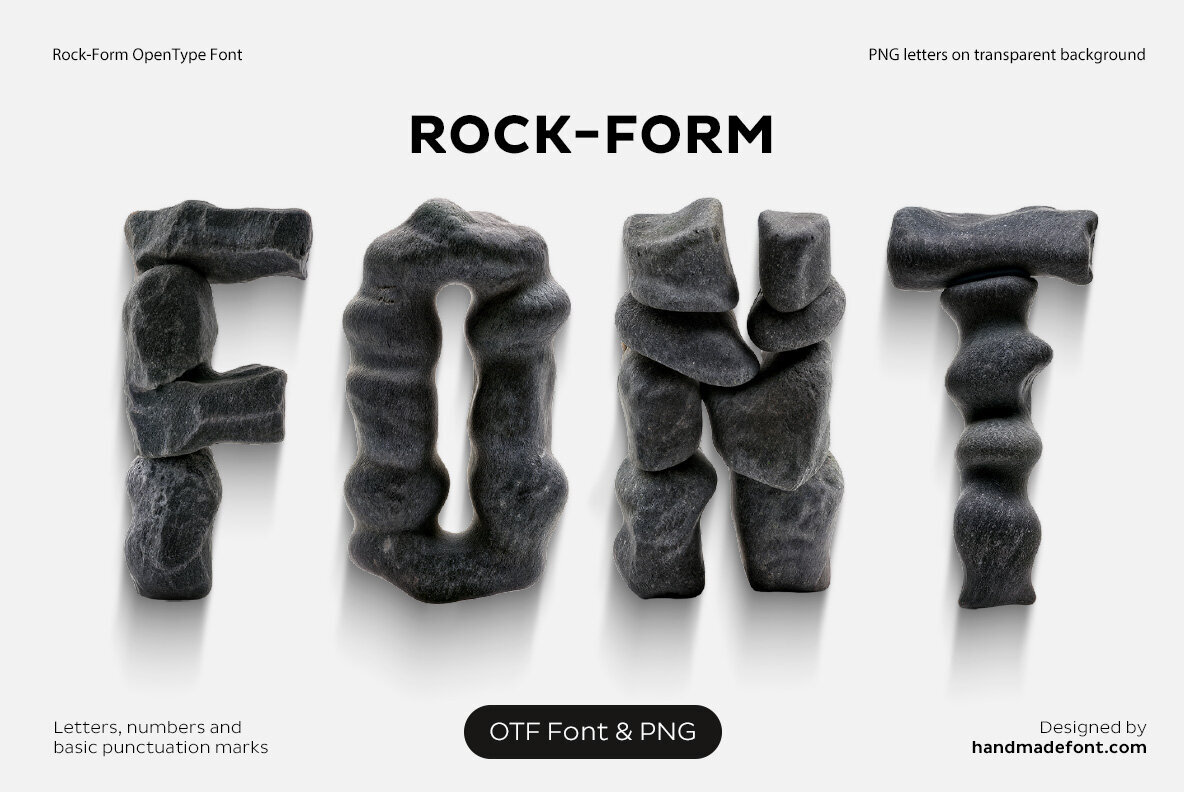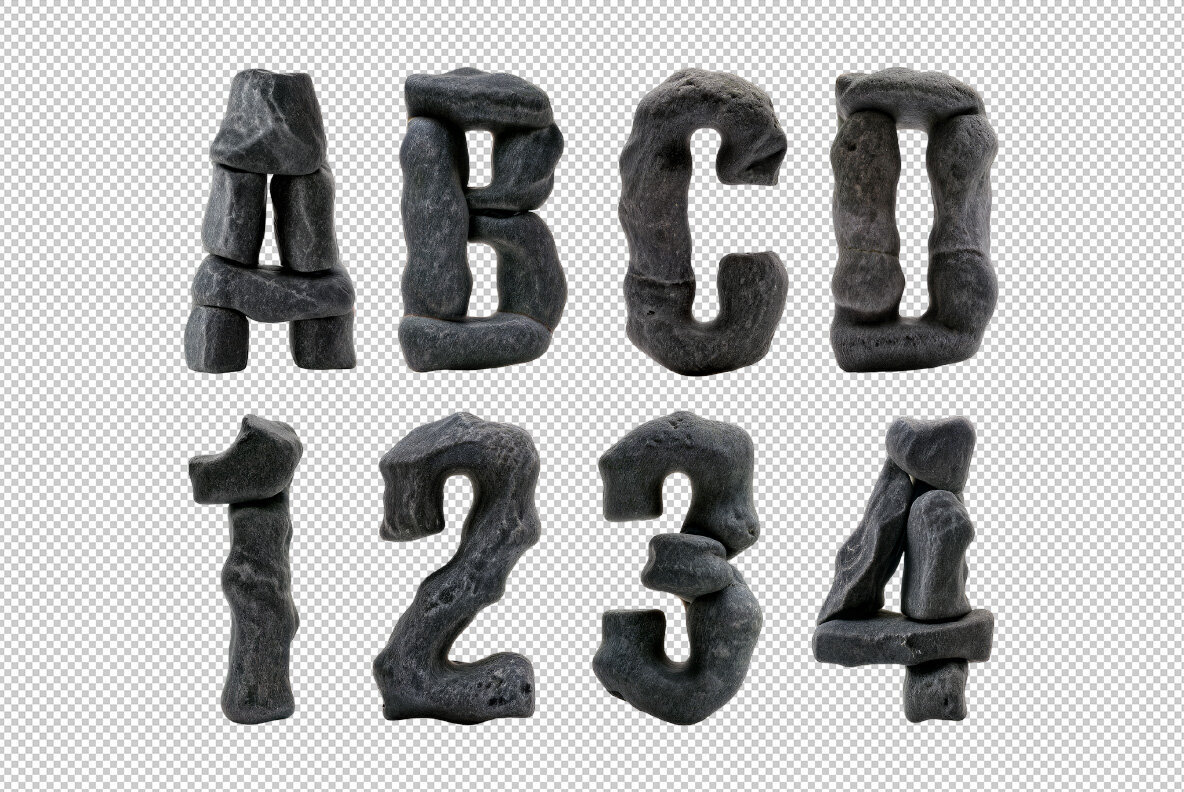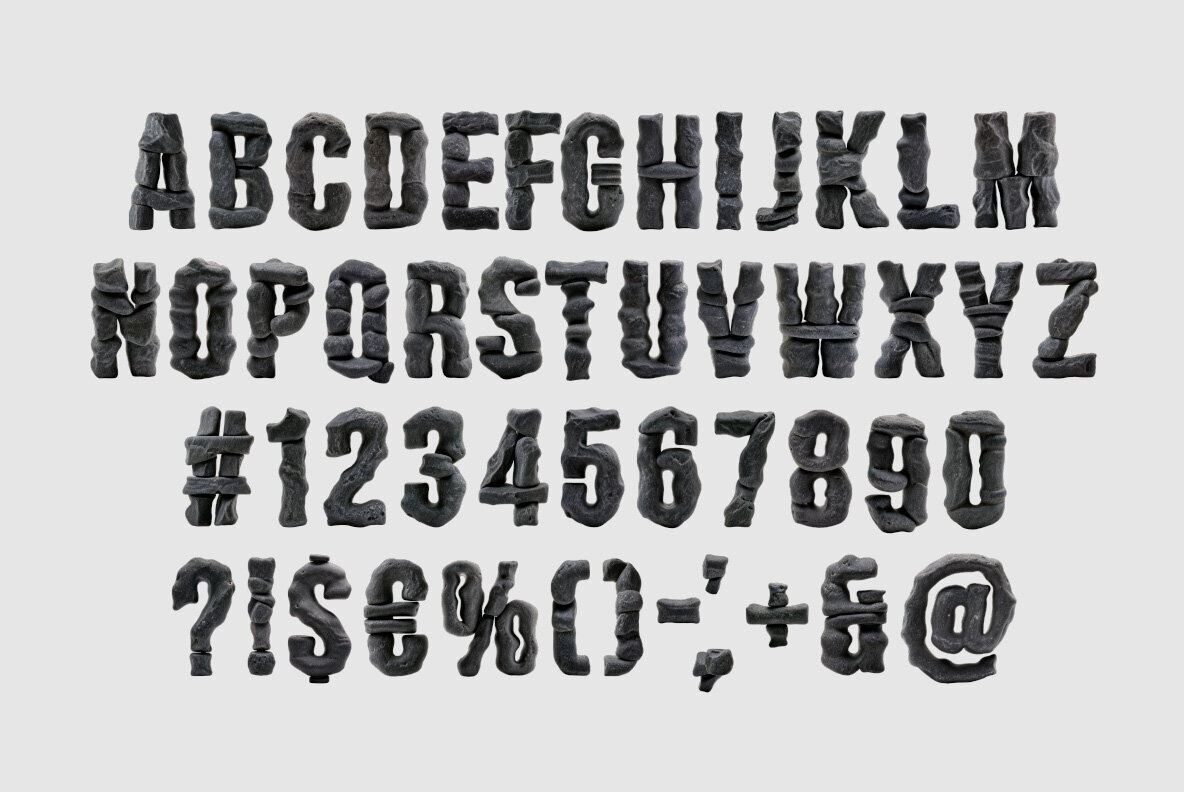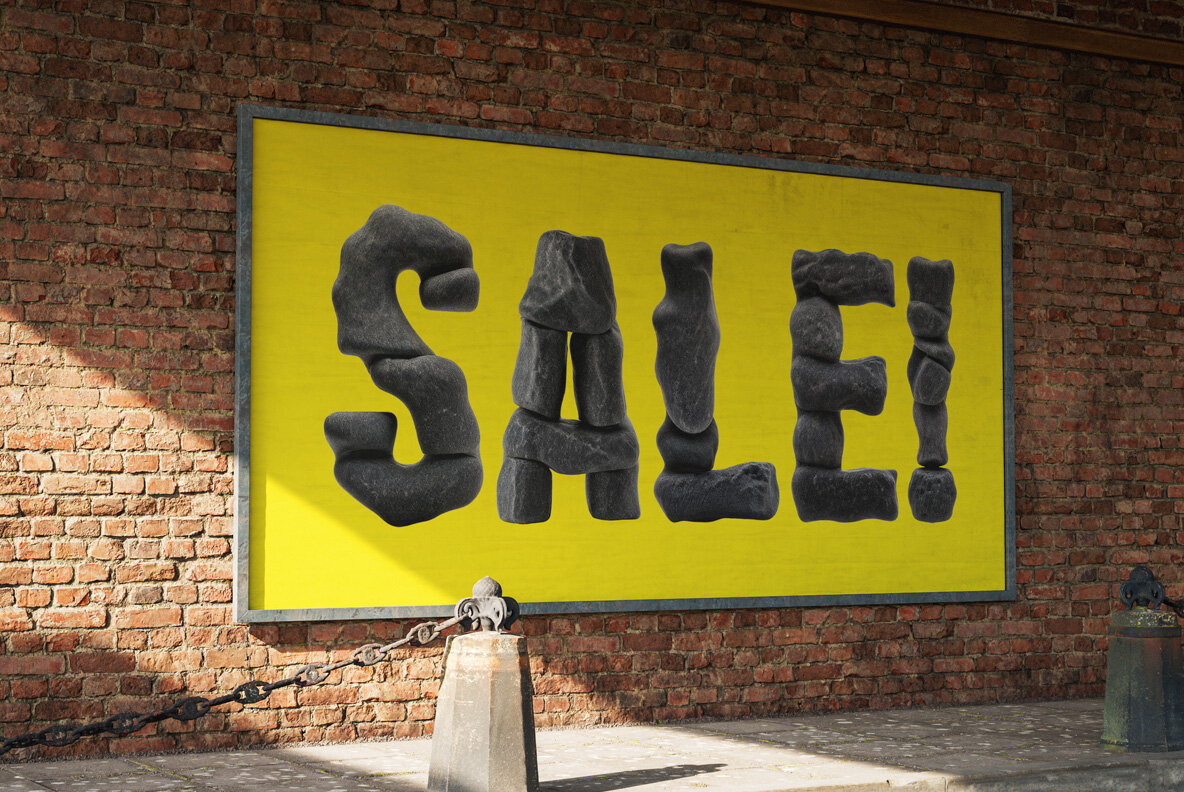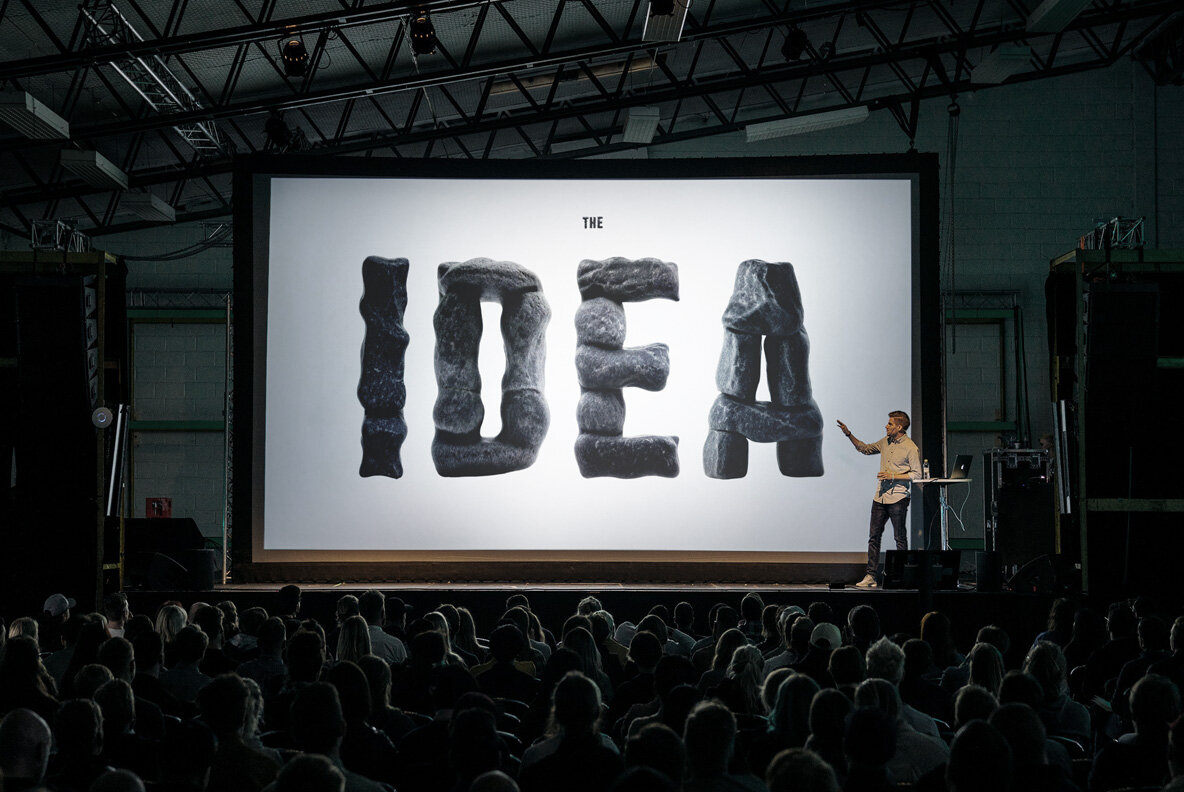
Meet the Rock Form SVG, a truly unique typeface that brings the weight of stone to your words. Crafted to resemble hand-stacked boulders, each character exudes a rugged charm ideal for caveman branding, prehistoric parties, or any project craving a touch of the Stone Age. This isn't just another display font; it is bold, rough, and surprisingly versatile, making it perfect for logos, posters, and designs that demand attention. Although extended punctuation and language support are not in font files, all punctuation marks and essential accents are available as PNGs. Add weight to your typography with Rock Form SVG, where every character counts and every word rocks.Rock Form SVG: The Bold Stone-Inspired Typeface